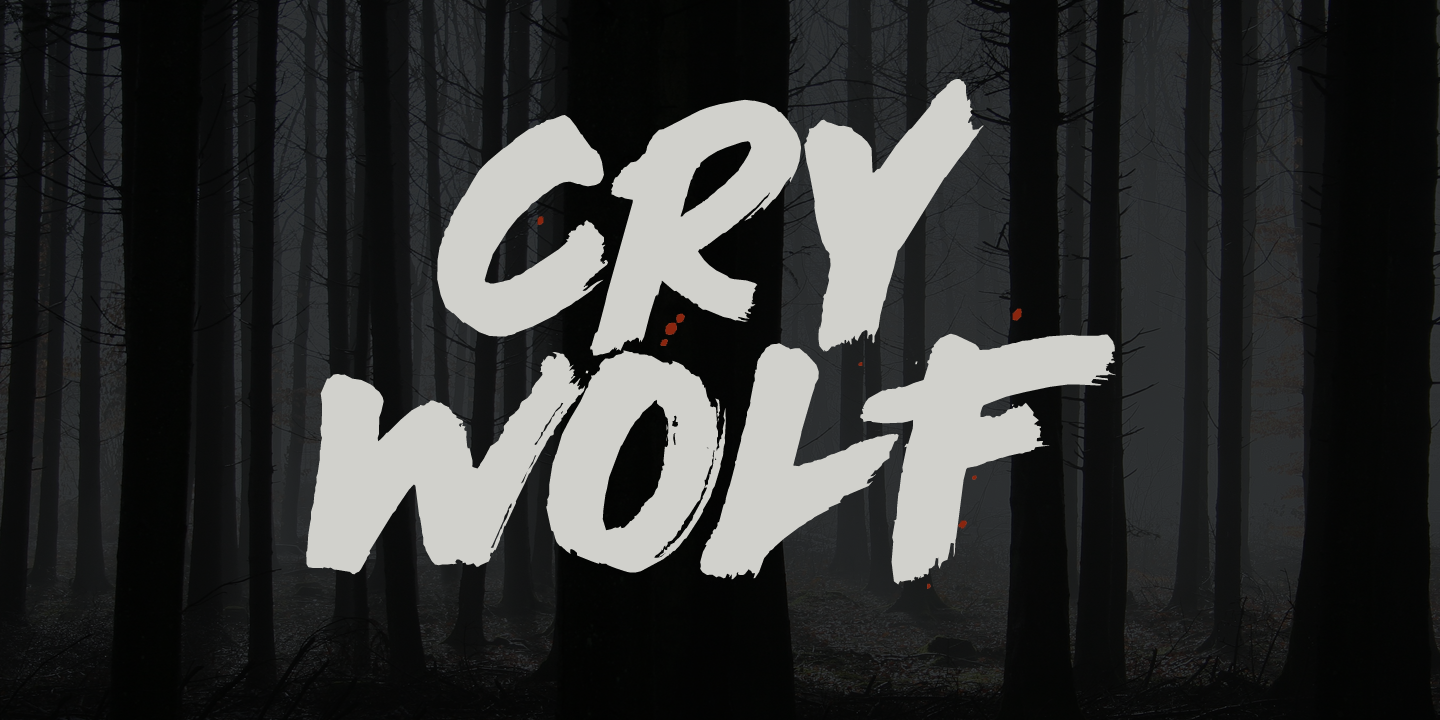
The Cry Wolf Font Free Download is ideal for book covers, Halloween posters, product packaging, and edgy branding, offering a bold, grunge-inspired aesthetic.
This font is exciting because its scary, hand-painted brush style with inky splatters, inspired by the tale “The Boy Who Cried Wolf,” delivers a raw, dramatic vibe.
The Cry Wolf family includes Regular and Italic styles, providing versatile options for creative typography.
Unleash gritty creativity with the Cry Wolf Font Free Download, a brush display typeface designed by David Kerkhoff and published by Hanoded in 2017. Crafted with a battered brush, Chinese ink, and quality French paper, Cry Wolf features a slightly tilted, splattered design perfect for striking headlines, logos, or Halloween-themed graphics. With 397+ glyphs supporting multiple languages, it’s available in OTF, TTF, and WOFF formats for seamless use across print and digital platforms. As 2025 design trends favor bold, expressive typography, downloading Cry Wolf Font Free Download keeps your work dynamic and impactful. Test it today at myfonts.com to explore its spooky potential, and consider purchasing for commercial use to fully leverage its wild style.